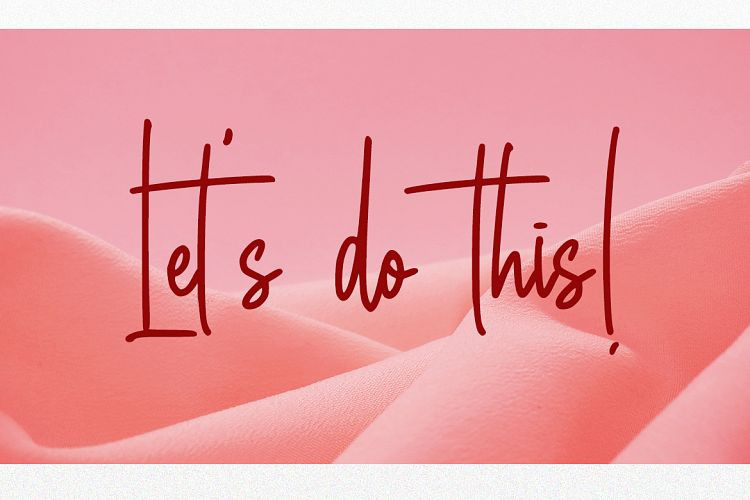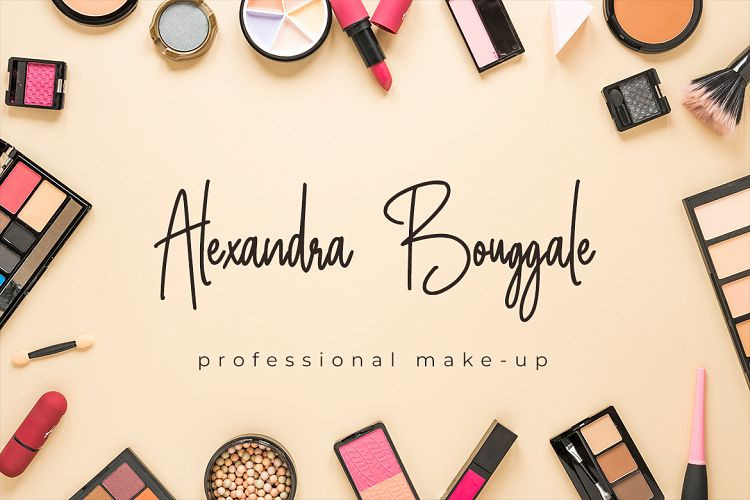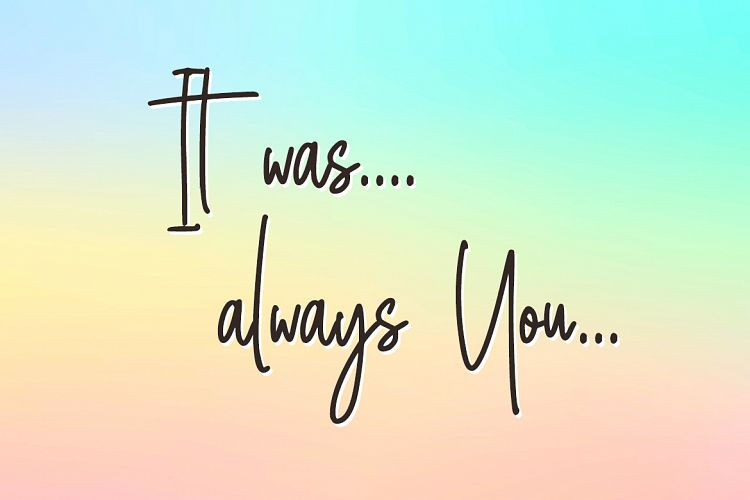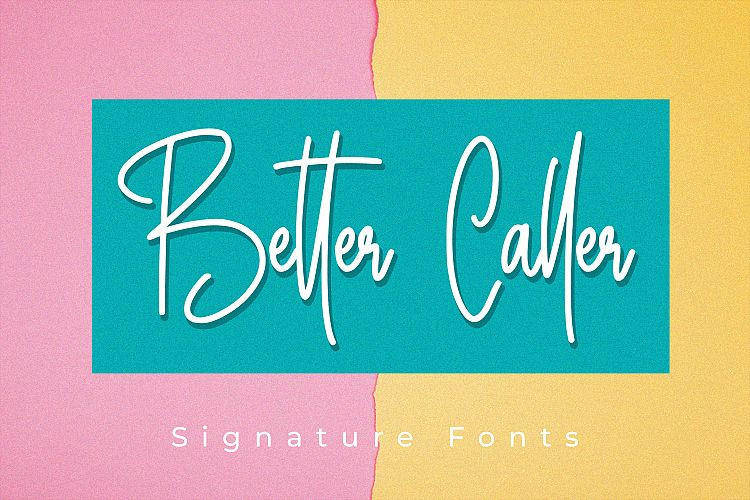
Better Caller Signature Font
Better Caller Signature Font – This is a new luxury signature font. This is a natural & modern handwritten font. Better Caller designed and shared by Abraham Type. Better Caller Script created from naturally handwritten, it will make your design more beautiful. It’s an elegant, feminine and graceful calligraphic handwritten script font with will be perfect for branding, logos, wedding stationery, social media, packaging, and other projects that require an elegant touch.